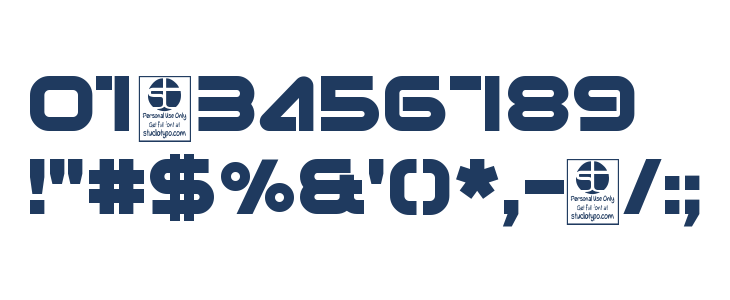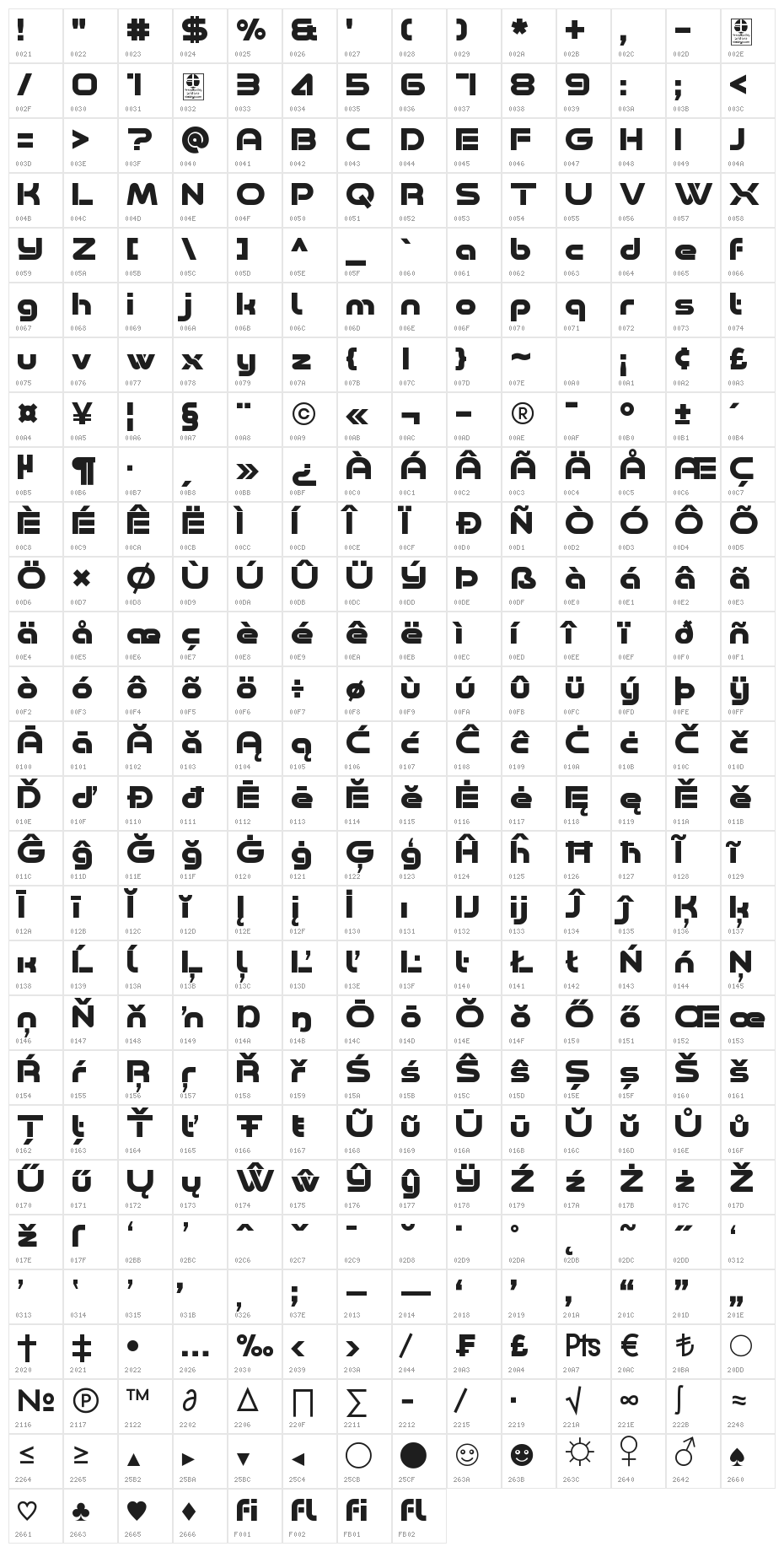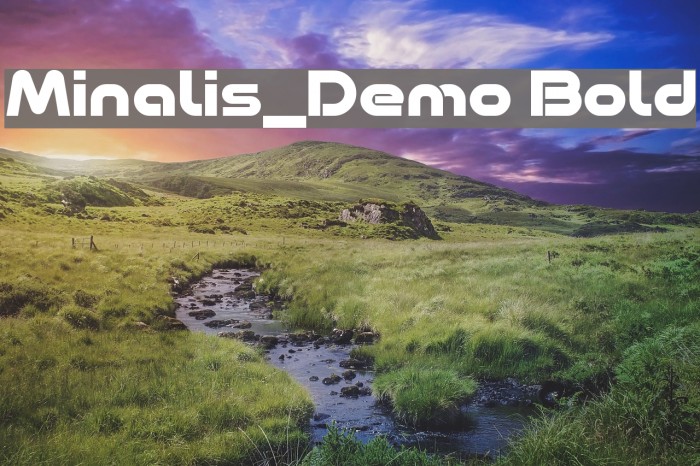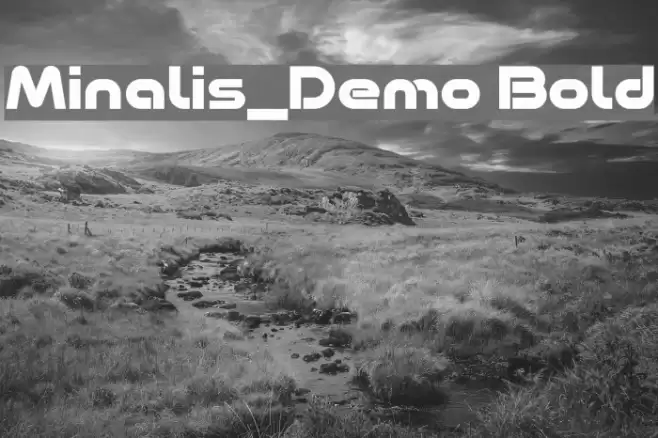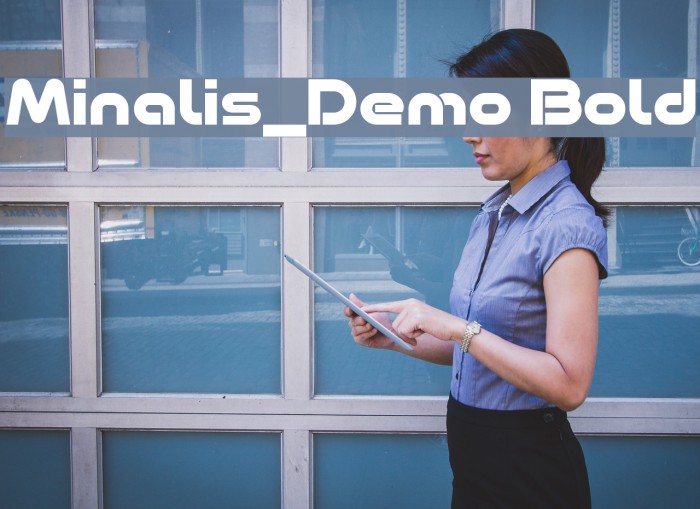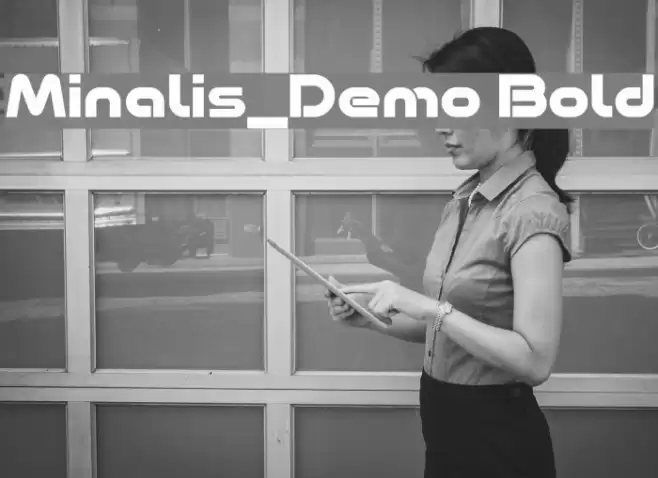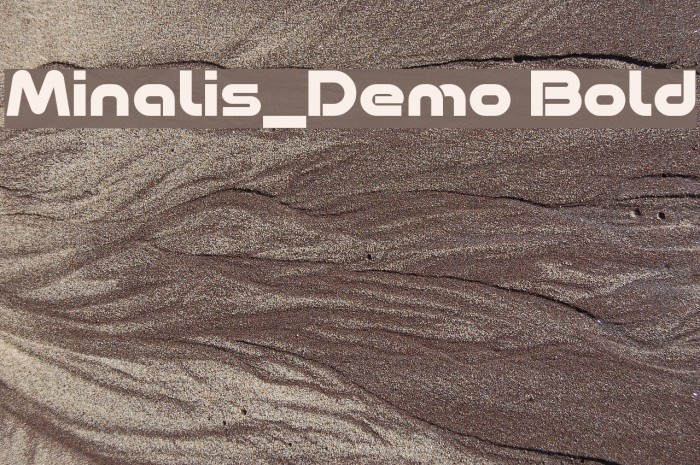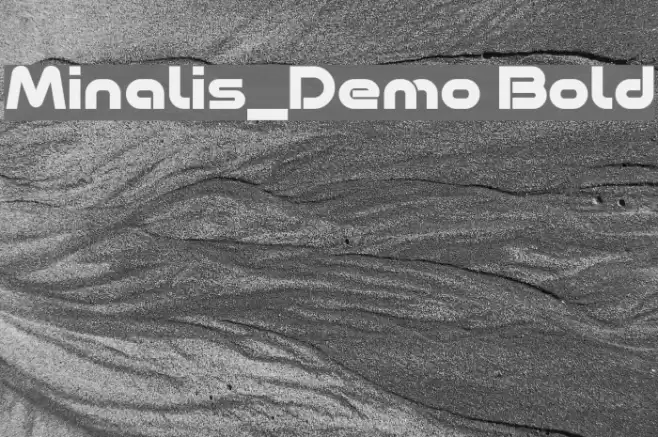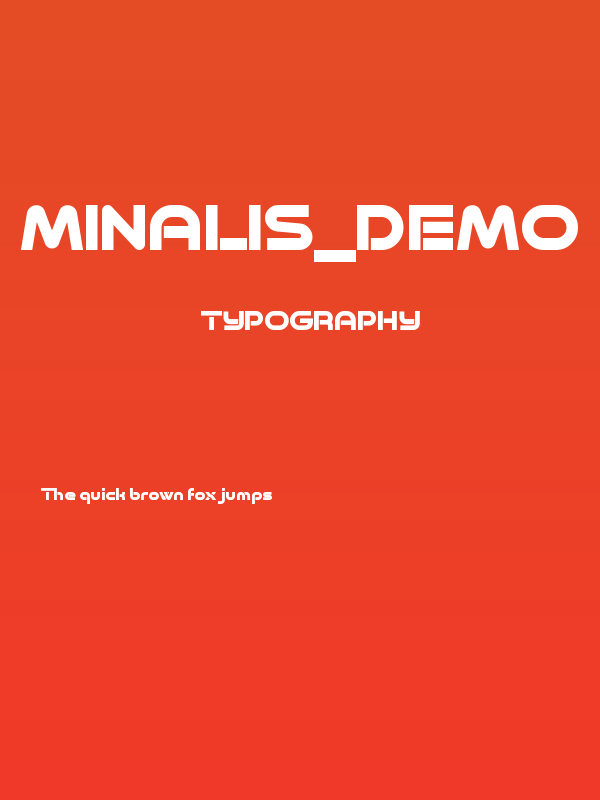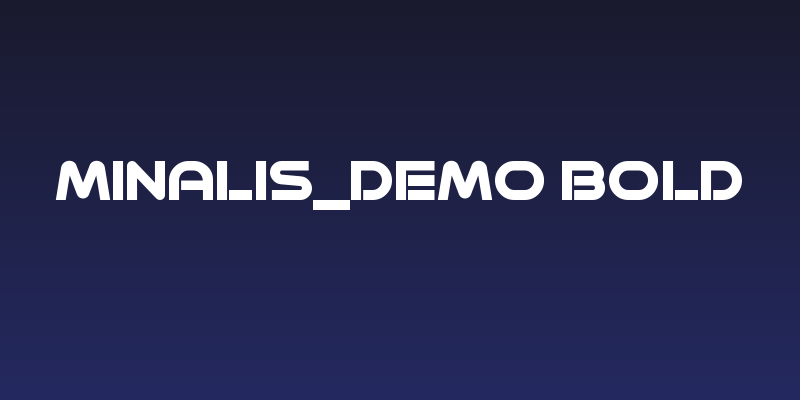
Minalis_Demo Bold Font
Minalis_Demo Bold Description
This font features a bold, geometric design with a modern and futuristic aesthetic. The characters are constructed with clean, straight lines and sharp angles, giving it a strong and assertive presence. The uppercase letters are particularly striking, with a uniform height and width that create a cohesive look. The lowercase letters maintain the same geometric style, providing a seamless transition between cases. Numbers and special characters are designed with the same attention to detail, ensuring consistency across all elements. This font's boldness and clarity make it ideal for impactful headlines and attention-grabbing designs.